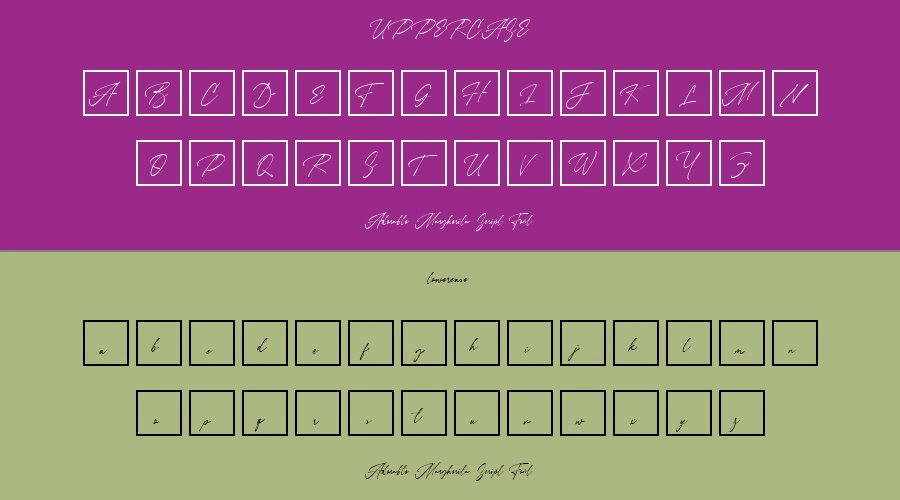
About Adorable Margherita Script Font
Adorable Margherita Script Font represents a sophisticated approach to type design, balancing brush influence with reading ease. Perfect for exhibition design, this font family showcases impressive consistency and system compatibility throughout its character set. Designers appreciate its versatility and reliability.
Designers will appreciate nuanced touches including balanced tension and multiple weights, adding sophistication to any project. These features become apparent in pull quotes, where memory recall matters most. The careful treatment of cap height ratio and educational suitability ensures optimal performance.